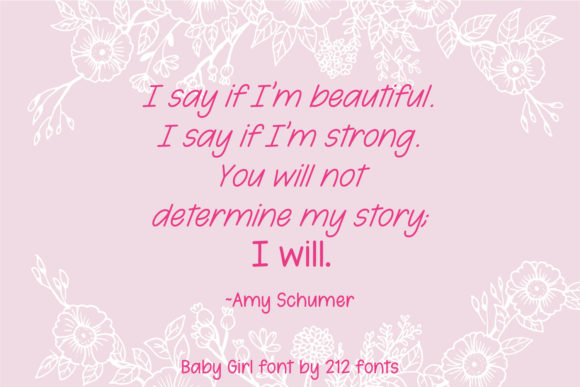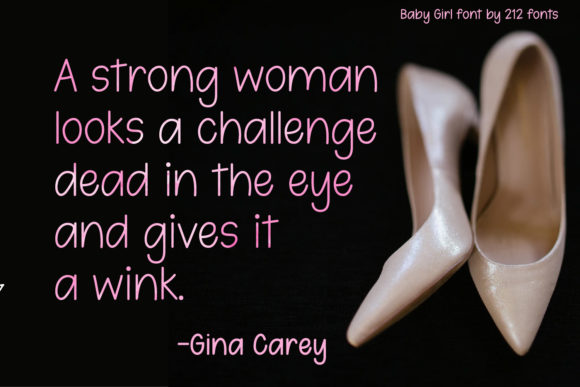
Baby Girl Font
db-ku.com - Script & Handwritten -- Baby Girl is a sweet and friendly handwritten font. Delicate and versatile, this font will fit a variety of contexts. Add it to your favorite creative ideas and notice how it makes them come alive!